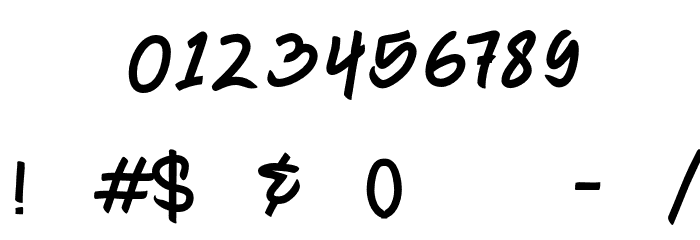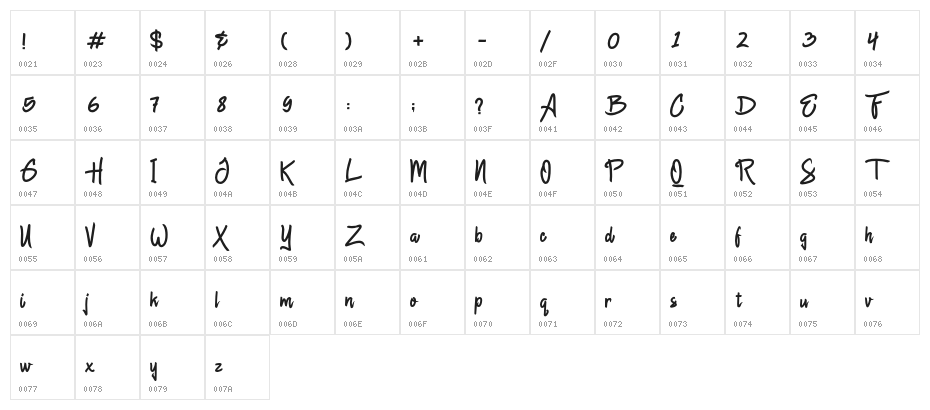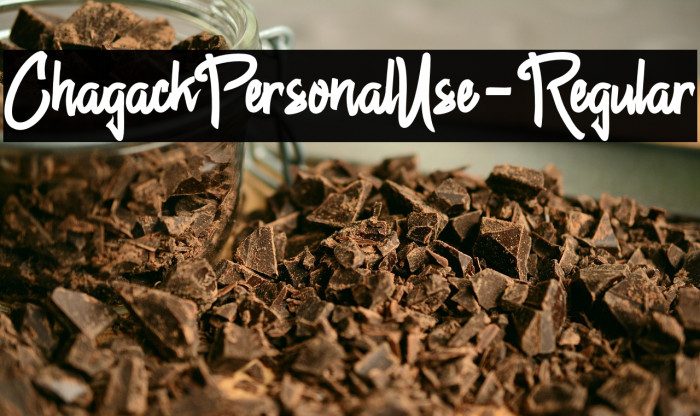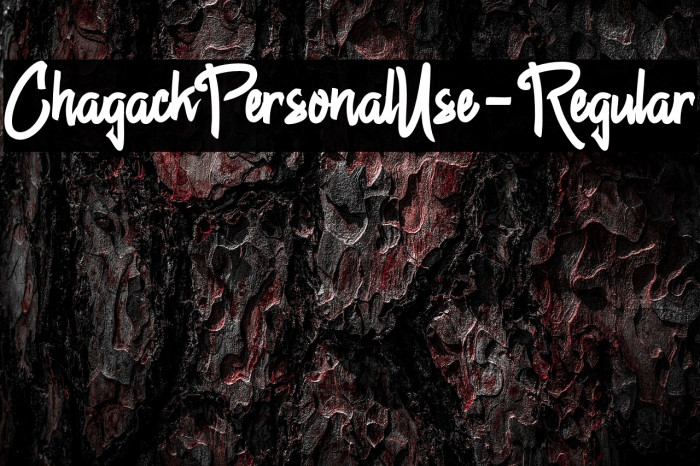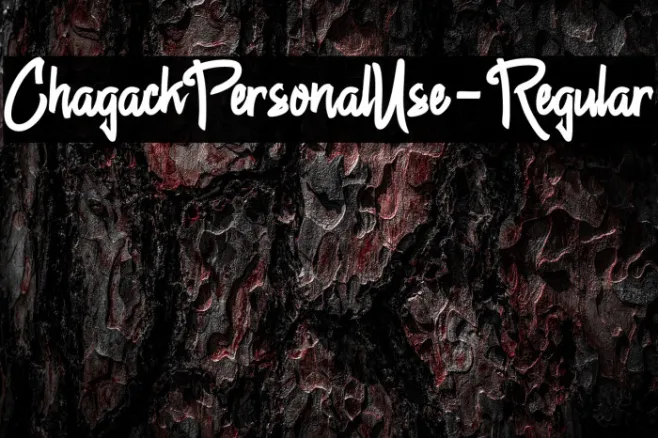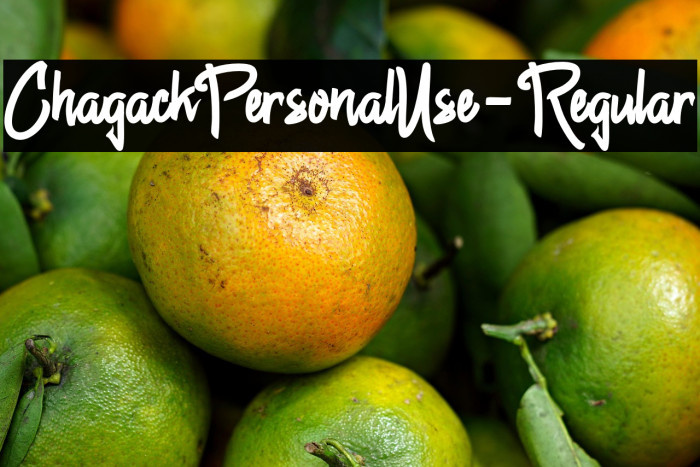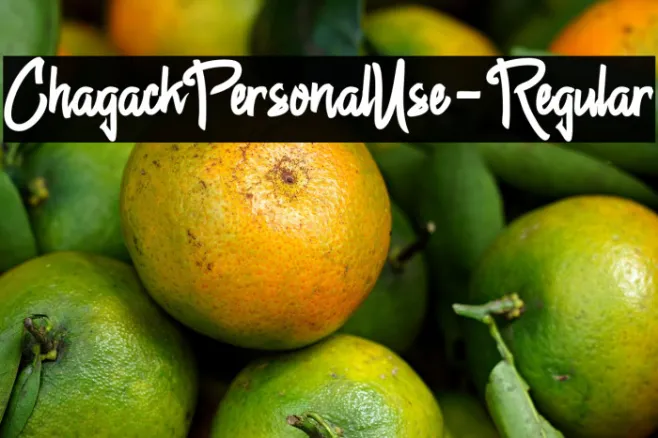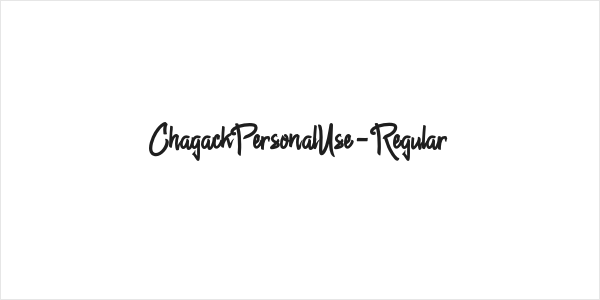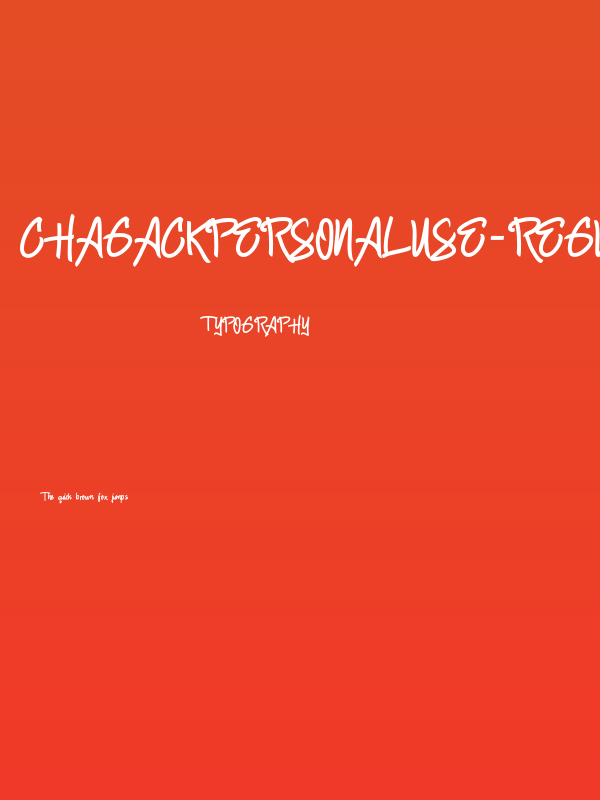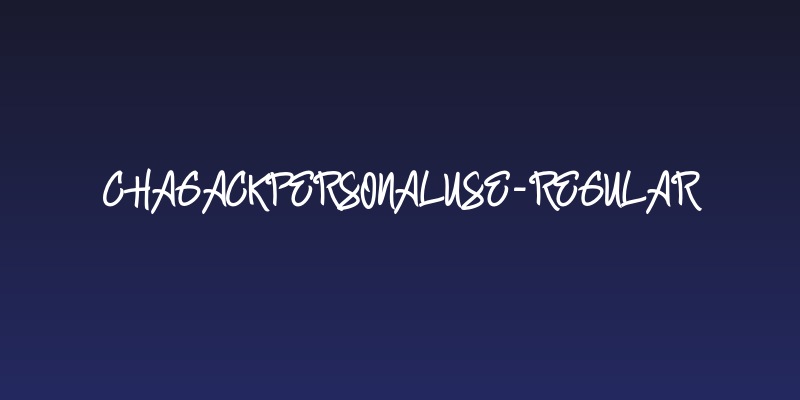
ChagackPersonalUse-Regular Font
ChagackPersonalUse-Regular Description
This font features a bold, handwritten style with a playful and energetic character. The uppercase letters are tall and slightly slanted, giving a dynamic feel, while the lowercase letters maintain a consistent flow with rounded edges. The numbers are bold and clear, matching the overall style. Special characters are creatively designed, adding to the font's unique personality. The strokes are thick, providing a strong presence, and the overall design is cohesive, making it suitable for creative projects.